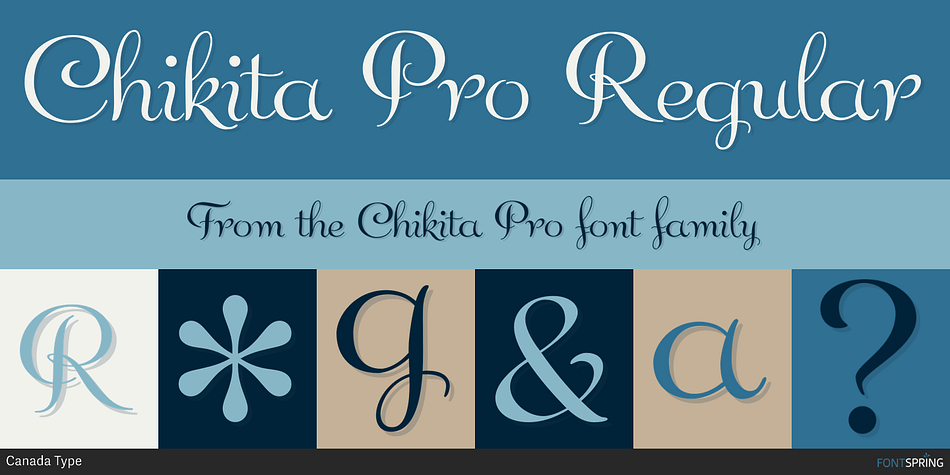
Chikita Pro Regular
Chikita Pro is a script font published by Canada Type.
Chikita greets you with big, happy eyes, and all the energy in the world.
Chikita greets you with big, happy eyes, and all the energy in the world. She wants to skip the talking and get to the dance floor, where she owns the beat and sways like a tongue of fire. She doesn’t settle for anything less than everyone in the room fixating on her, and every pair of eyes is indeed happy to oblige. Being both the noumenon and phenomenon of the party, she remains in your mind long after closing time. And you just know the next time you see her your heart will skip a beat and a welcome wave of contentedness will wash over you.
The Chikita design is rooted in the work of 1930s Dutch lettering artist Martin Me